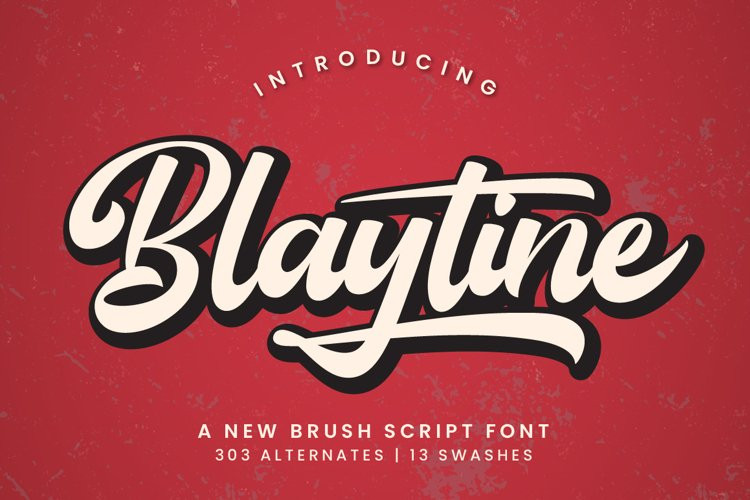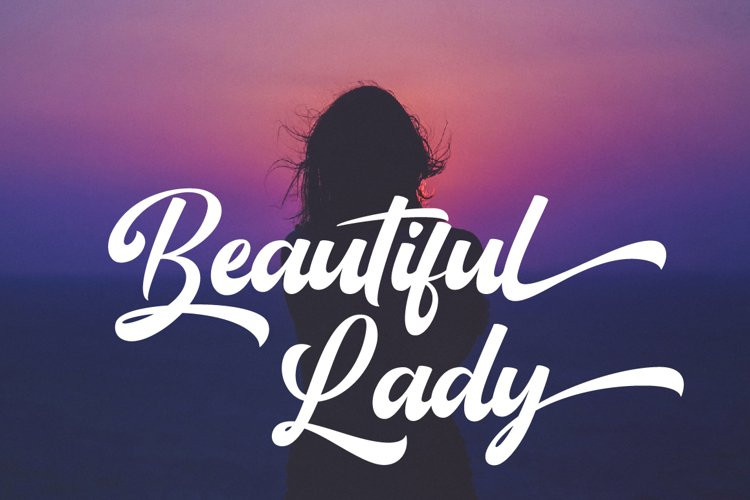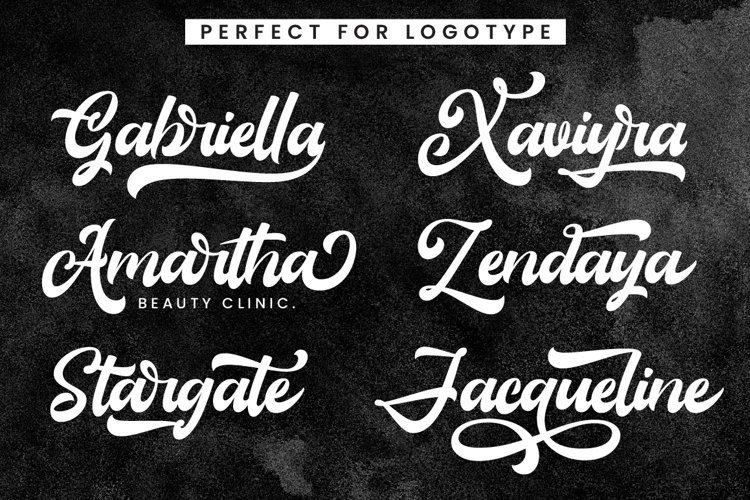
Blaytine Font
Blaytine FontBlaytine is a modern bold brush script font with smooth handwritten flows. Blaytine font perfect for logos, watermark, wedding stationery, cards, gift designs, photography, and product packaging. This font includes 303 alternates and 13 swashes, also full set of uppercase and lowercase letters, multilingual symbols, numerals and punctuation and ligatures.